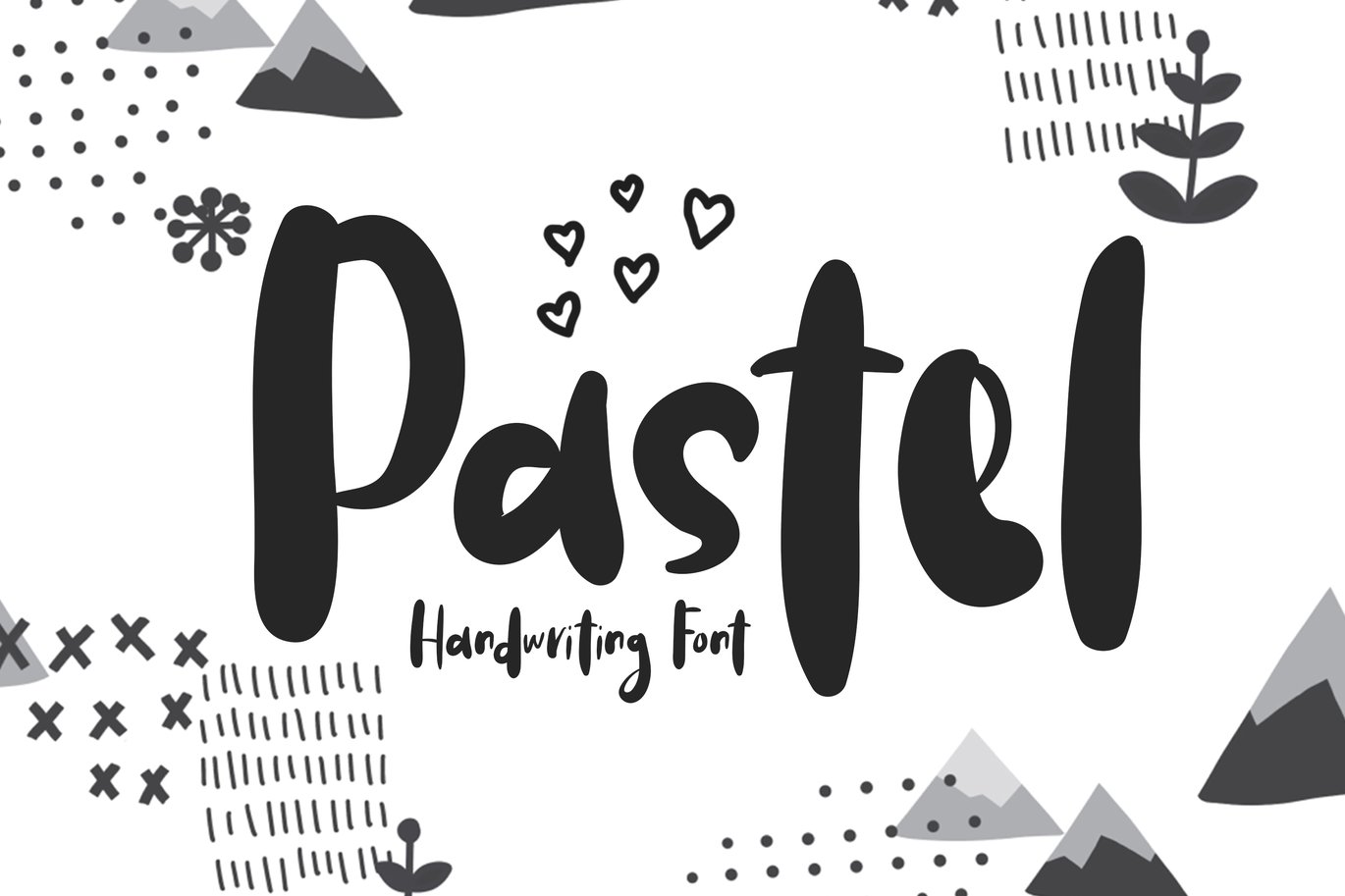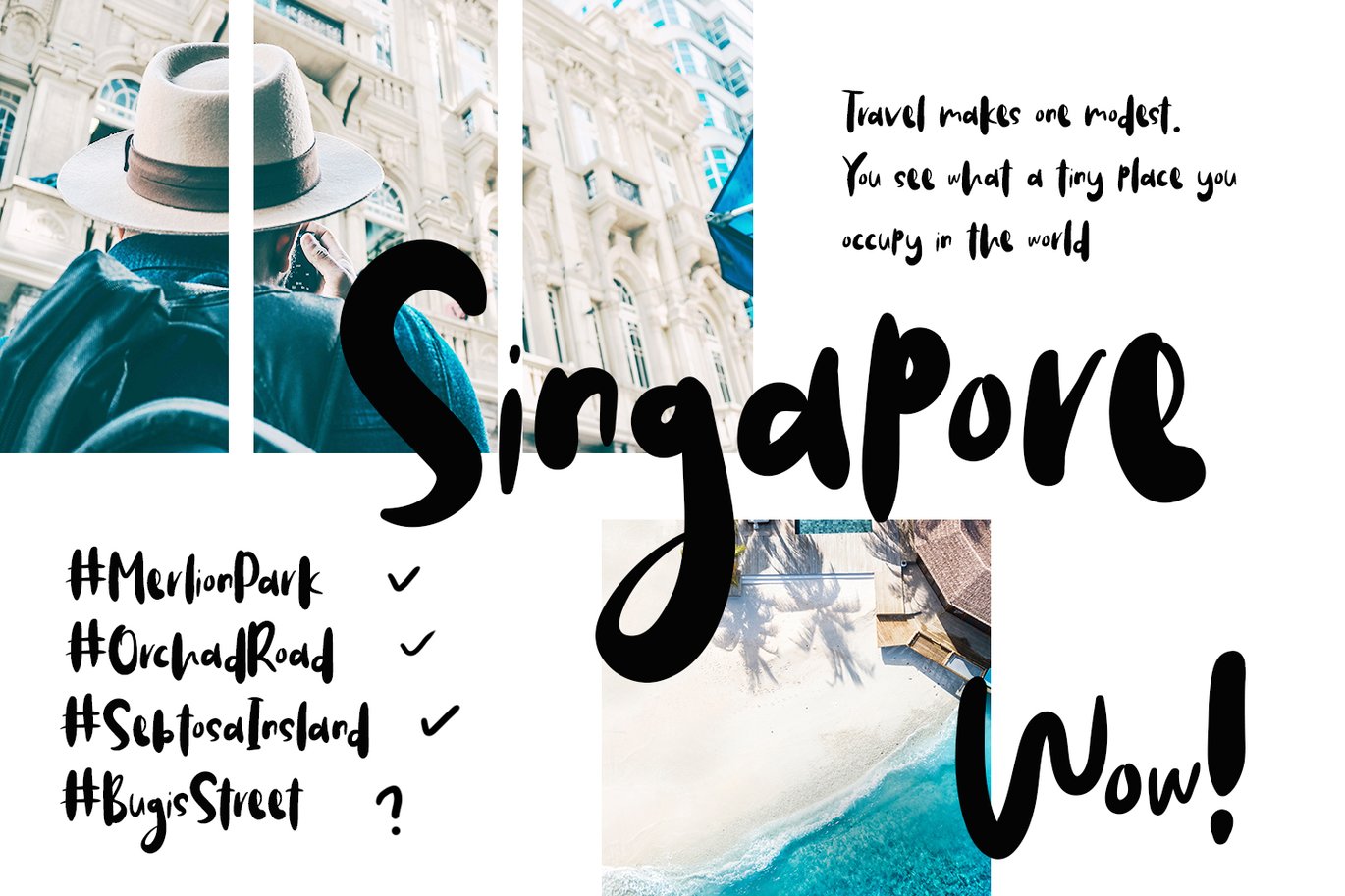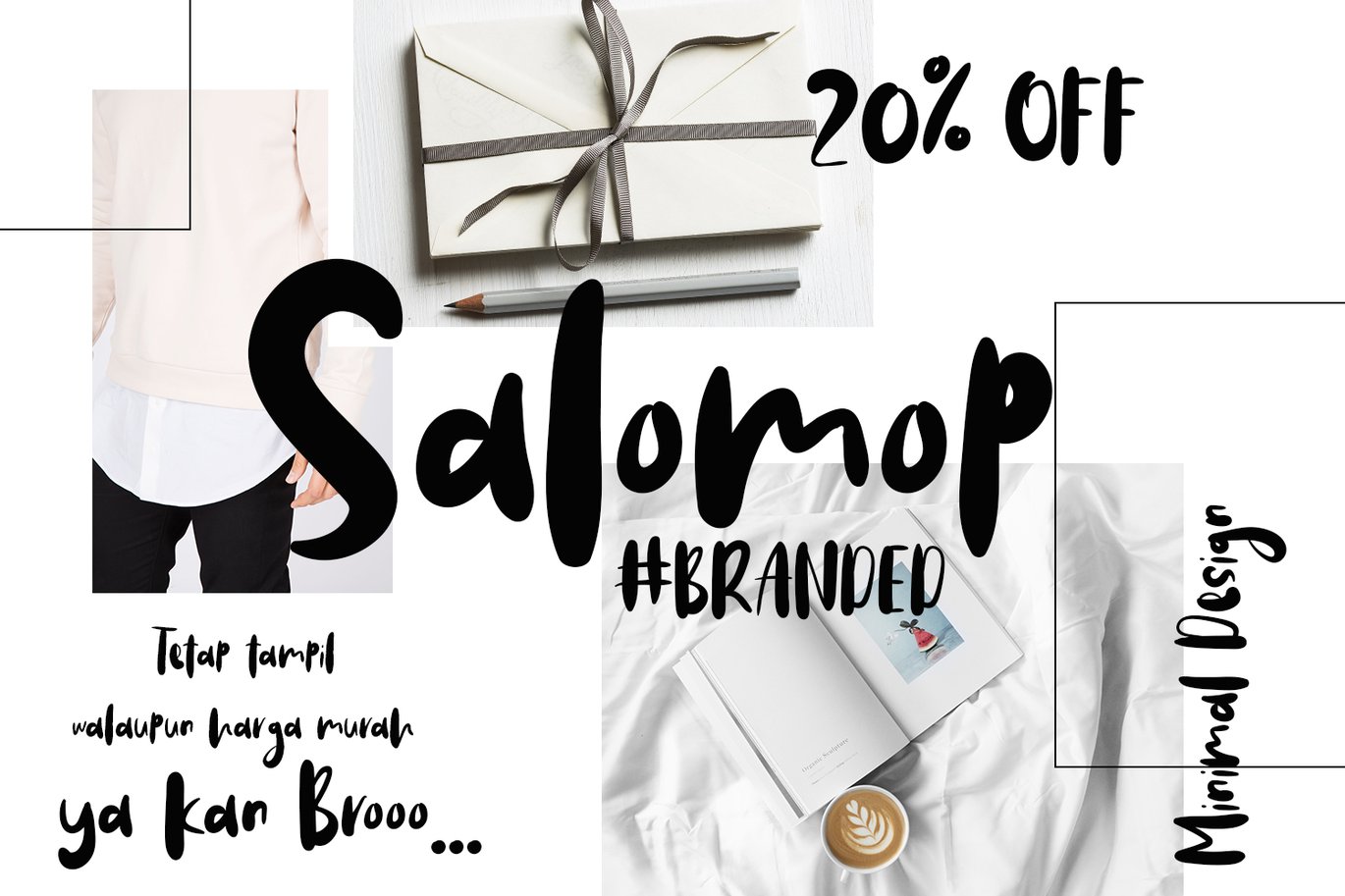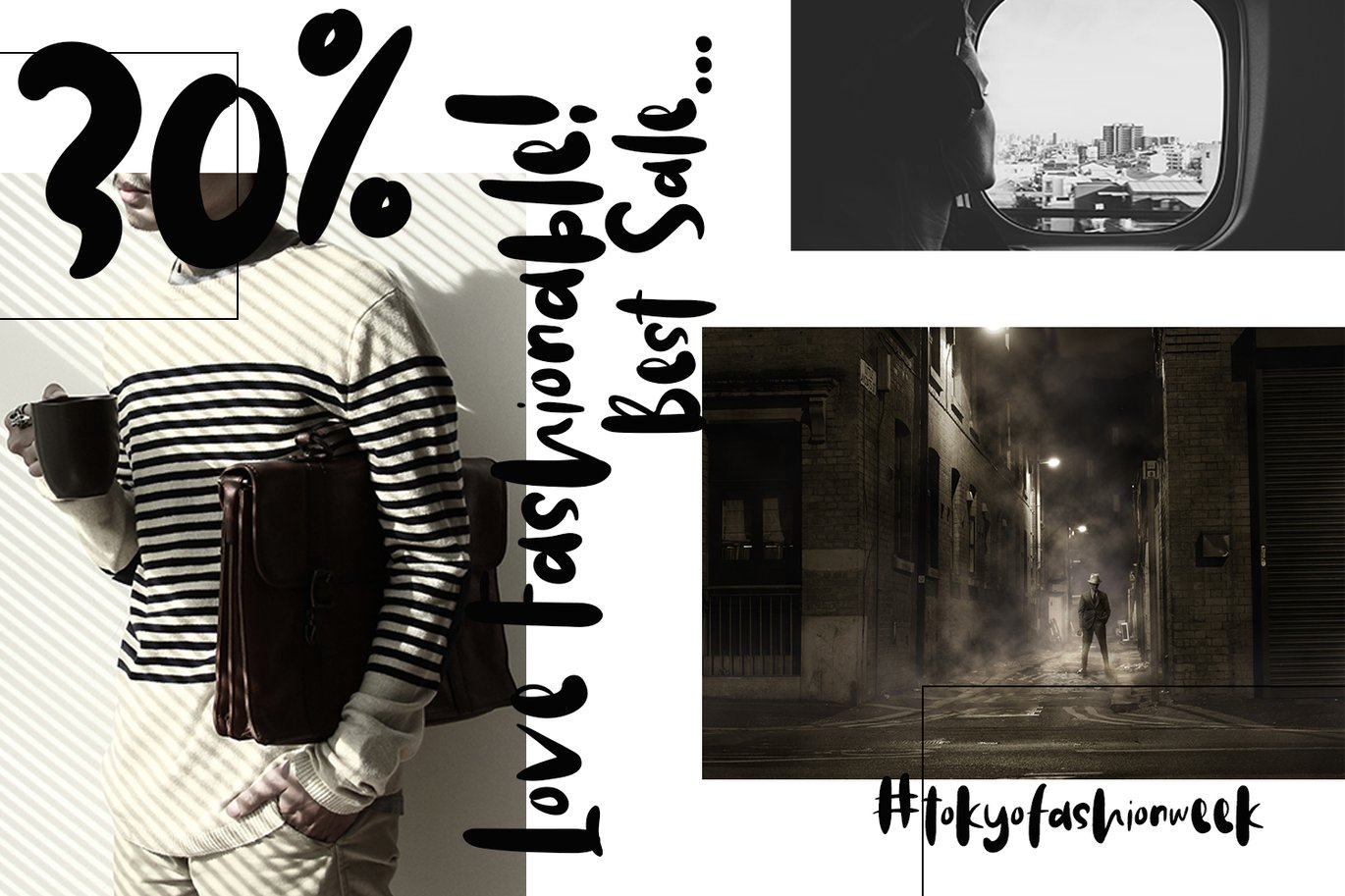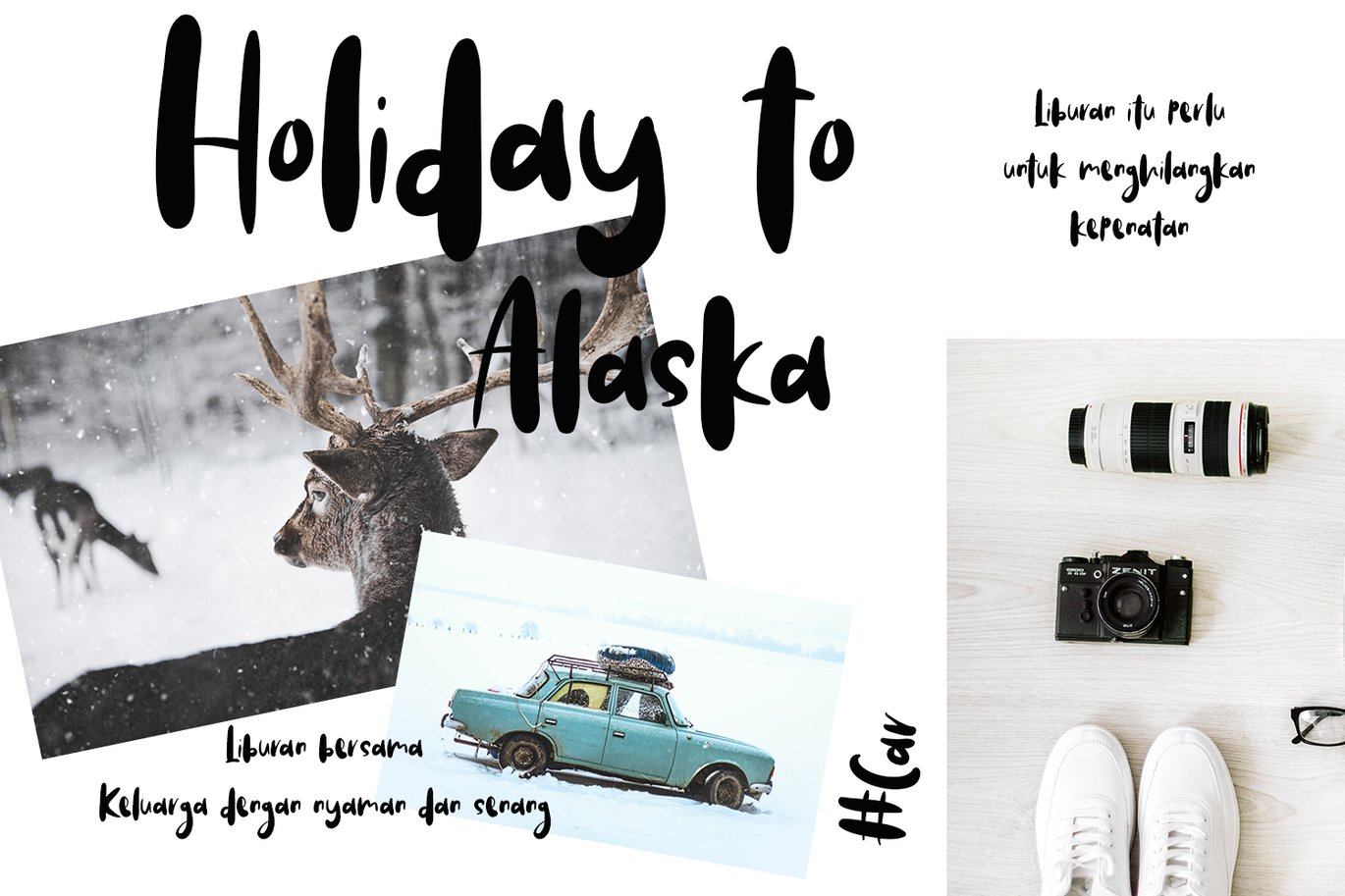
Pastel | Handwriting Font
Wow, this time we made a simple and cute font, perfect for those of you who want to write a note with cool ink strokes.
Pastel – A Handwritting sans and unique, funny, cute character! it’s perfect for logos, name card, magazine layouts, invitations, headers, or even large-scale artwork.